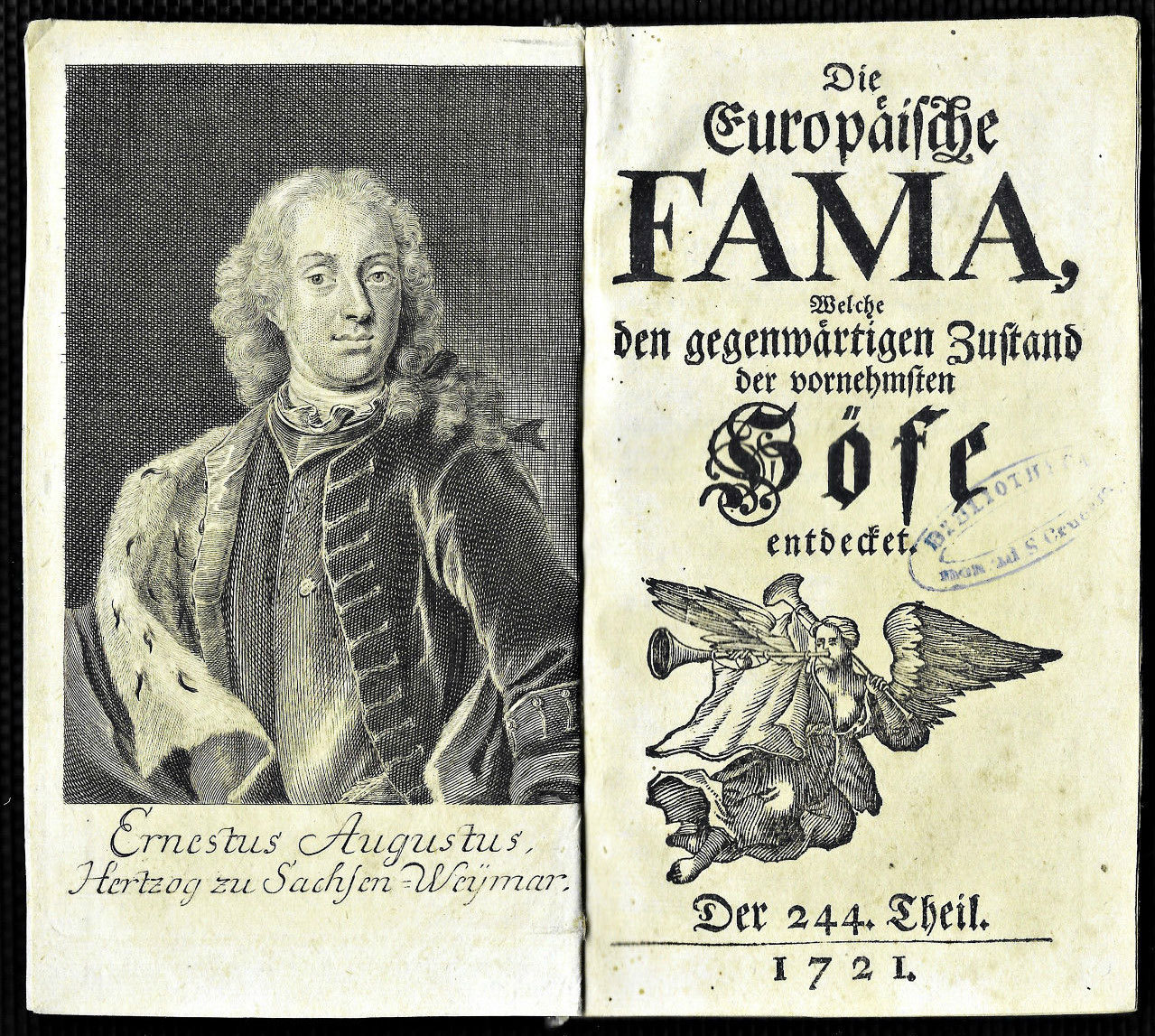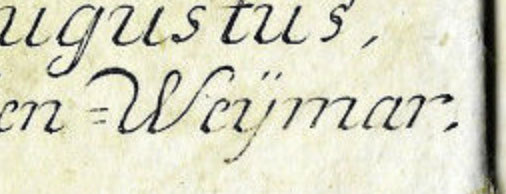
IJ done right
I’m quite stucked at the moment with the letter/ligature IJ and ij. It seems there are plenty of different kinds how to draw it. The most of the classic sans-serif fonts like Helvetica, Univers and Meta for example just uses ordinary glyphs of I and J, put them together and abracadabra here is your ligature.
This seems are little bit to easy in my opinion. So I started a little research and what you see down here are my actual results.
But now I’m a little bit confused right now. What is THE definitely form of IJ and ij. Is it better to ad points to the glyphs? Or without? Is the form of the ij correct in overall? It looks like a school form of the y.
While it is treated as one letter in an orthographic sense, the common way to typeset this letter combination in Dutch is by simply using the individual characters i & j and I & J. The Unicode ligature has not much relevance as far as I am aware and the people who read Dutch don’t expect a special ligature design.
For logos, signage and things like that, the design might get a little more exciting. This Flickr group has nice examples:
For fonts its more about fixing possible problems of combining the two individual letters, especially in all-caps settings. This Underware article has some more explanations and samples: http://www.underware.nl/blog/2014/10/typesetting-the-dutch-ij/
So, it seems that there is no right or wrong in this case, because of your argumentation that it’s more common to typeset this combination.
Loved the Underware article. The Dutch IJ issue is totally new to me. I find it kinda funny how what gave birth to "y" is still used as-is in one specific language and needs its own glyph :)  I mean, couldn't we just skip a couple centuries and use a straight y ?
I find it kinda funny how what gave birth to "y" is still used as-is in one specific language and needs its own glyph
As far as I know, the history of ij isn’t yet fully understood.
A connection to y is just a theory. See:
The German ß is an equally interesting case. Its surprising, that we know so much about ancient civilizations living thousands of years ago, but the origin of certain characters, used by millions of people every day, remain unknown.